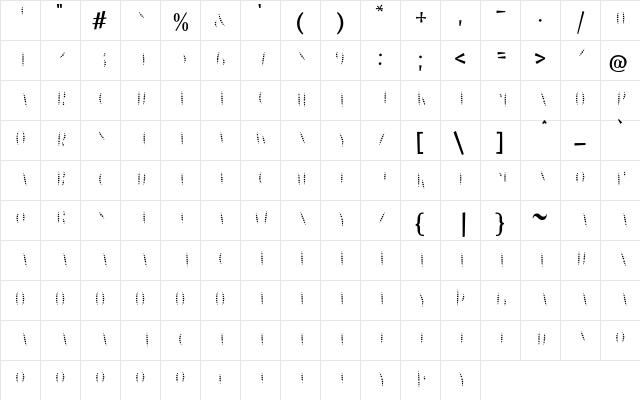
Les Paul Inline Cartoon
Design Context for Les Paul Typeface
Les Paul trades formality for fun, with bouncy, characterful letterforms that bring warmth and energy to any project.
Font Pairing: Pairs well with a rounded or humanist sans for body copy, maintaining the friendly tone without relying on Les Paul to carry extended reading.
Pro Tip: Use Les Paul at larger display sizes where its expressive character can land. Pair with a clean, simple sans for body copy to maintain readability.